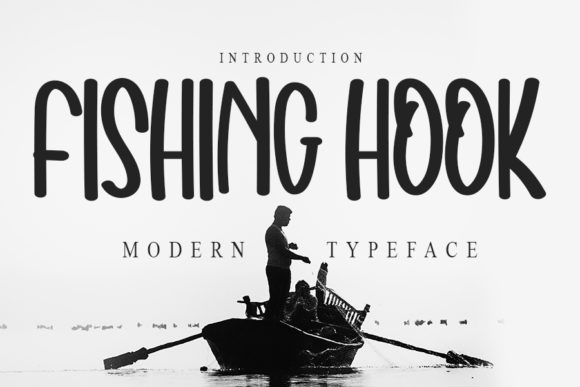
Unleash your creativity with Fishing Hook Font – the ultimate font for captivating designs that resonate with your audience. Its playful and lively strokes ignite a sense of joy and lightheartedness, leaving a lasting impression on every project you embark on.
Immerse yourself in the world of Fishing Hook Font, a whimsical and magnetic script font that captures the charm of handwritten letters. Each character dances across the page with an effortless flow, evoking a sense of authenticity and warmth. This font is not just a collection of letters; it's an expression of creativity and personality that elevates your designs to new heights.
Whether you're crafting logos that command attention, designing invitations that exude elegance, or creating posters that burst with vibrancy, Fishing Hook Font is your perfect companion. Its versatility knows no bounds, adapting seamlessly to any project, from branding and product packaging to t-shirts and labels.
Step into a world where imagination and design converge. Fishing Hook Font is the key to unlocking your creative potential, allowing you to weave enchanting stories through visual masterpieces. With its captivating strokes and infectious charm, this font will leave your audience spellbound and eager for more.
So, dive into the depths of creativity and let Fishing Hook Font guide you on an extraordinary journey. Its friendly and approachable nature will make your designs shine, leaving an unforgettable mark on the hearts and minds of your audience. Experience the magic of Fishing Hook Font today and unleash the boundless possibilities that await you.